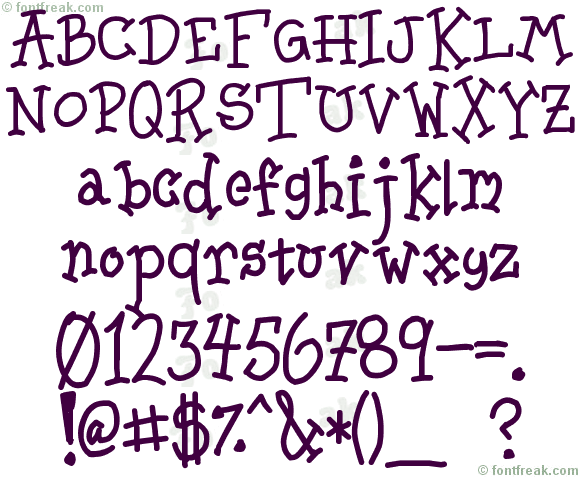
Bookworm
About Bookworm
The Bookworm font by A.J. Palmer is a distinctive display typeface that captures a playful and whimsical essence, perfect for various creative projects. Developed in 1997 and available as freeware, this font stands out with its unique handwritten style that features irregular strokes and a charming, organic feel. The strokes vary in weight, lending a sense of dynamism to the characters, while the slightly exaggerated curves and quirky letterforms add personality and flair. The spacing between the letters is somewhat loose, which enhances readability and gives the text a relaxed appearance.
Bookworm is ideally suited for a range of applications. It can be a delightful choice for children's book covers, where its playful nature can engage young readers. Additionally, it works well for educational materials, making learning more fun with its approachable design. The font can also enhance promotional materials for libraries and bookstores, drawing attention with its inviting aesthetic. Designers looking for a unique touch for event invitations, such as birthday parties or casual gatherings, will find Bookworm to be a fitting choice that conveys a friendly atmosphere.